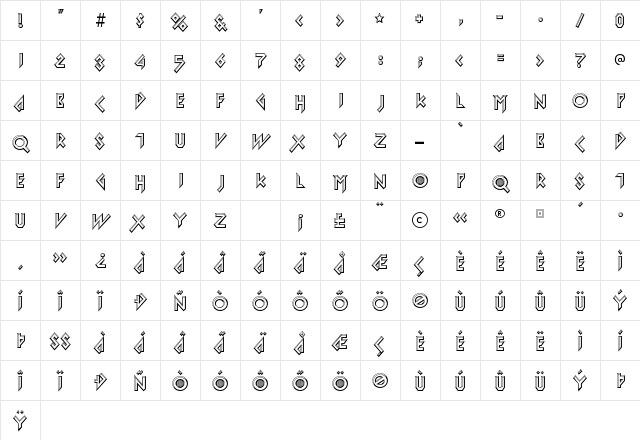
Iomanoid Regular
Iomanoid Family
Design Context for Iomanoid
Iomanoid is a composed and adaptable typeface that performs quietly and consistently across a wide range of design contexts.